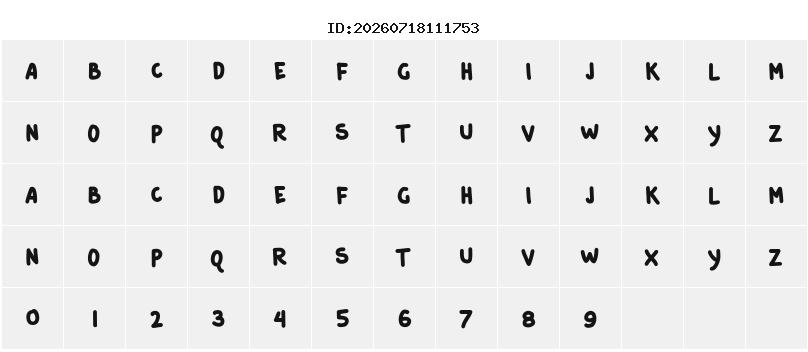
Catatan Perjalanan Preview
• Font Name: Catatan Perjalanan
• Full Font Name: Catatan Perjalanan
About Catatan Perjalanan.ttf
Catatan Perjalanan.ttf is a modern, elegant sans-serif font designed for ultimate readability and visual harmony. Perfect for branding, headlines, web design, and print materials.